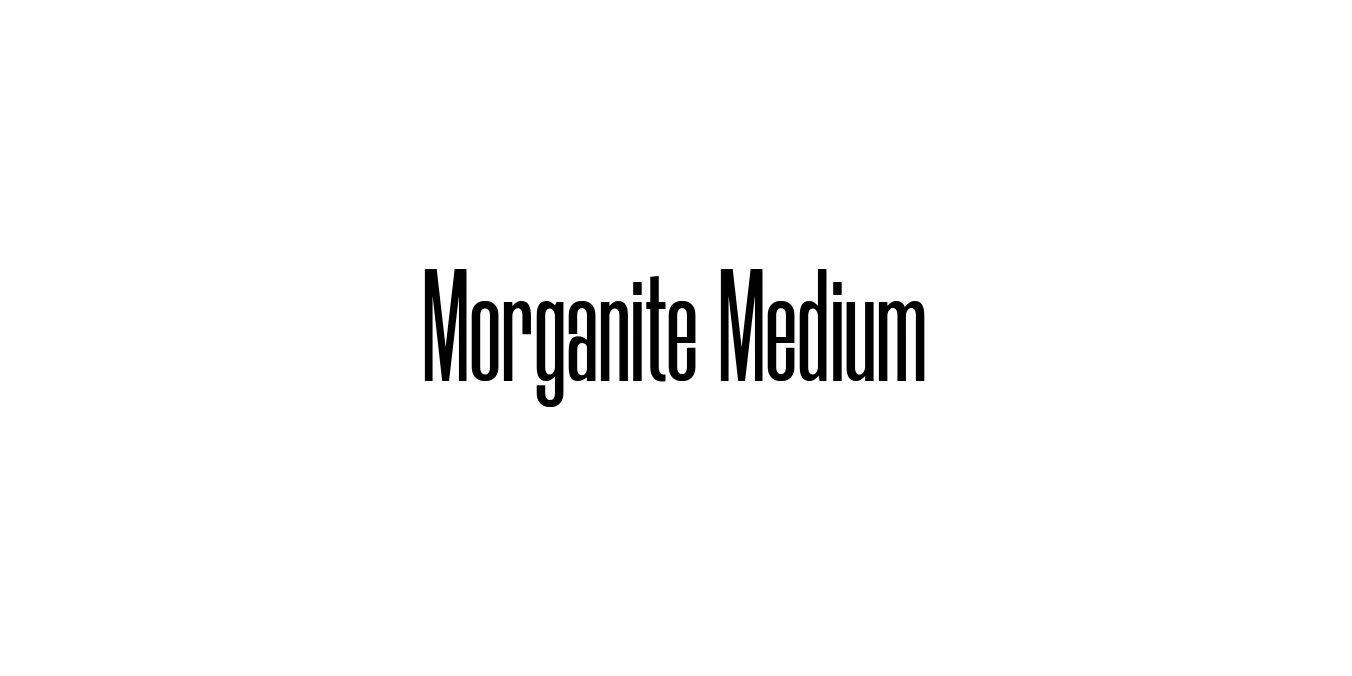
Morganite Medium
Designed by Rajesh Rajput
Morganite Medium is a standout member of the extensive Morganite typeface family, crafted by the Indian designer Rajesh Rajput. This condensed sans-serif font is widely recognized for its sleek, vertical architecture and sophisticated modern aesthetic. Designed to provide maximum impact in narrow spaces, it features a tall x-height and sharp, clean terminals that give it a distinctively contemporary and high-fashion feel.
The Medium weight offers a perfectly balanced stroke thickness, making it more versatile than its thinner or heavier counterparts. It is an industry favorite for cinematic posters, magazine headlines, and digital branding projects where a bold yet refined presence is required. Since its release, Morganite has become a staple for designers looking for a free, high-quality alternative to premium condensed display faces.
Morganite Medium Best Uses
Ideal for tall, striking headlines that require a condensed footprint.
Frequently used for credits and titles in cinematic design.
Provides a sophisticated and high-end look for lifestyle brands.
Perfect for creating bold, vertical-oriented graphics for Instagram and Pinterest.